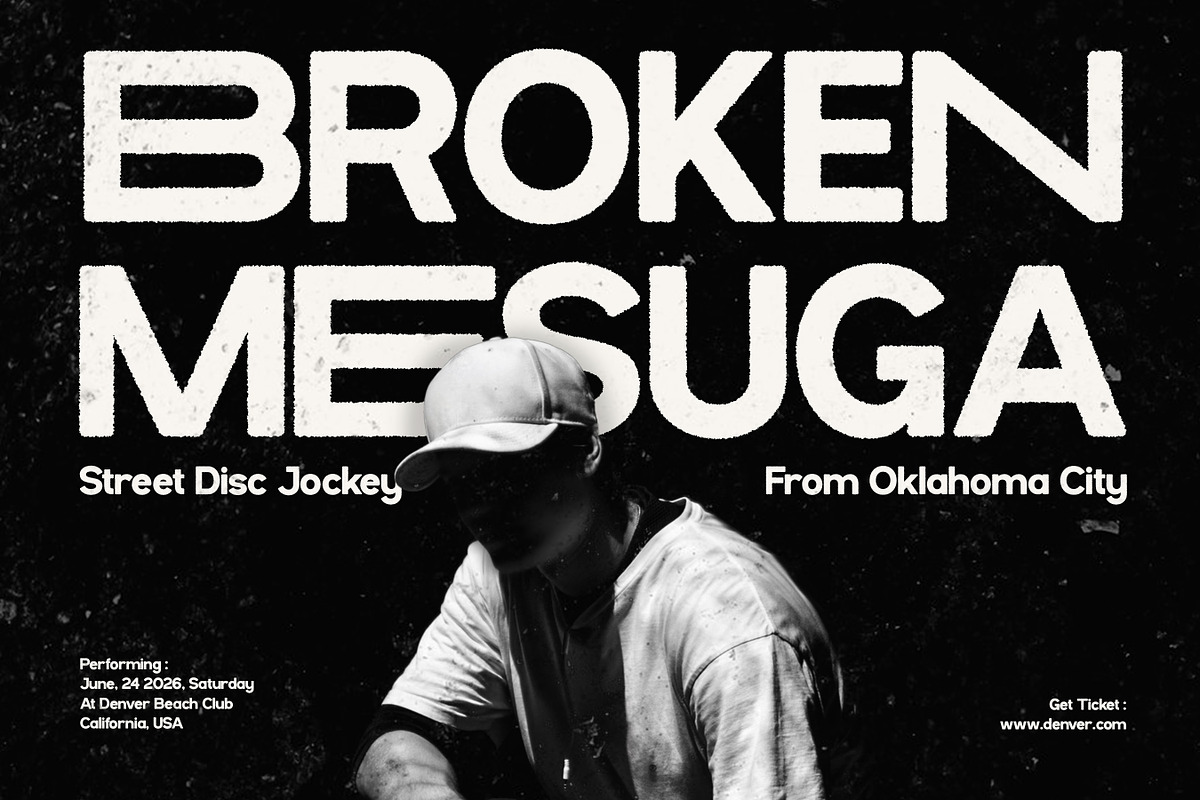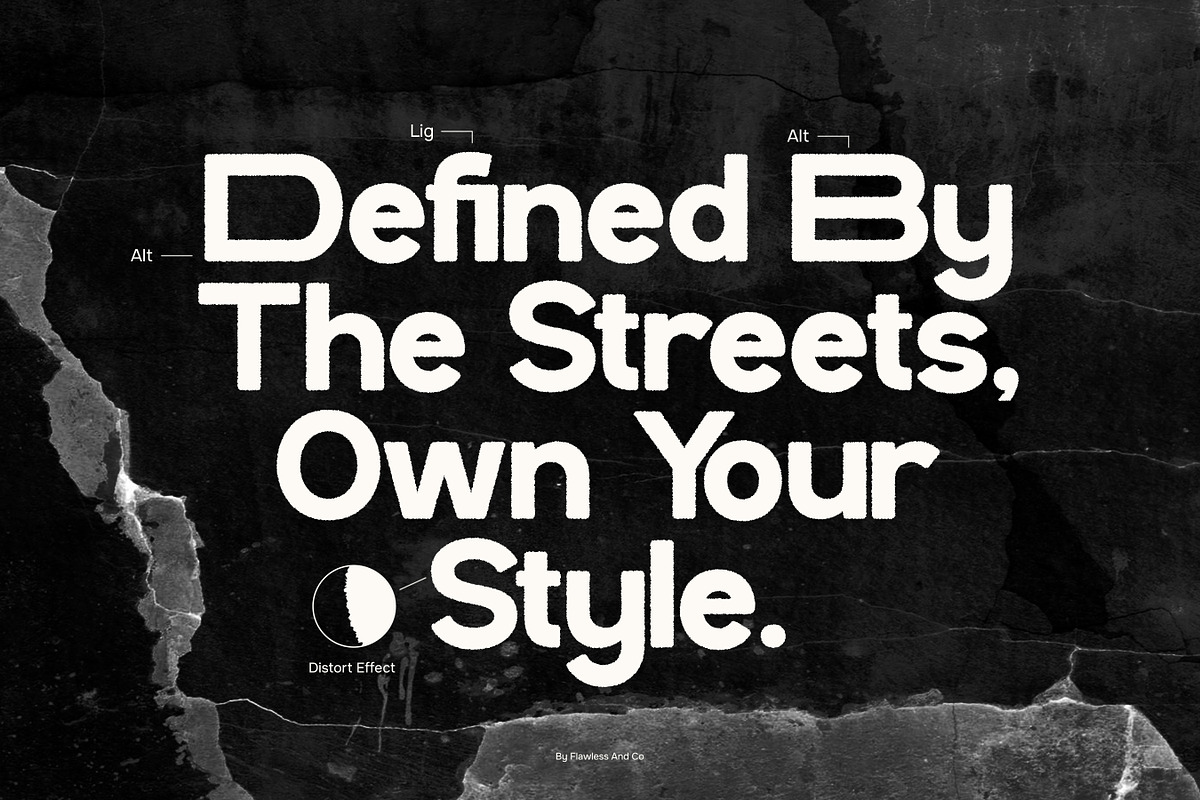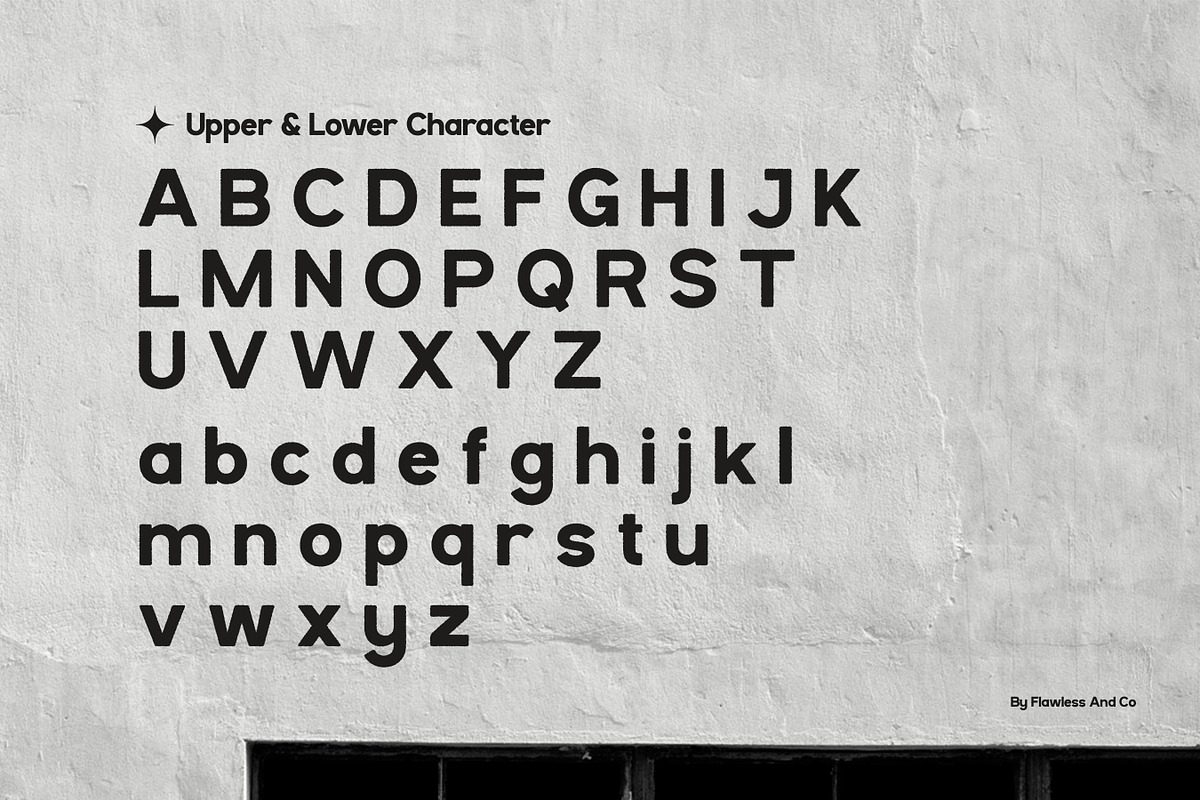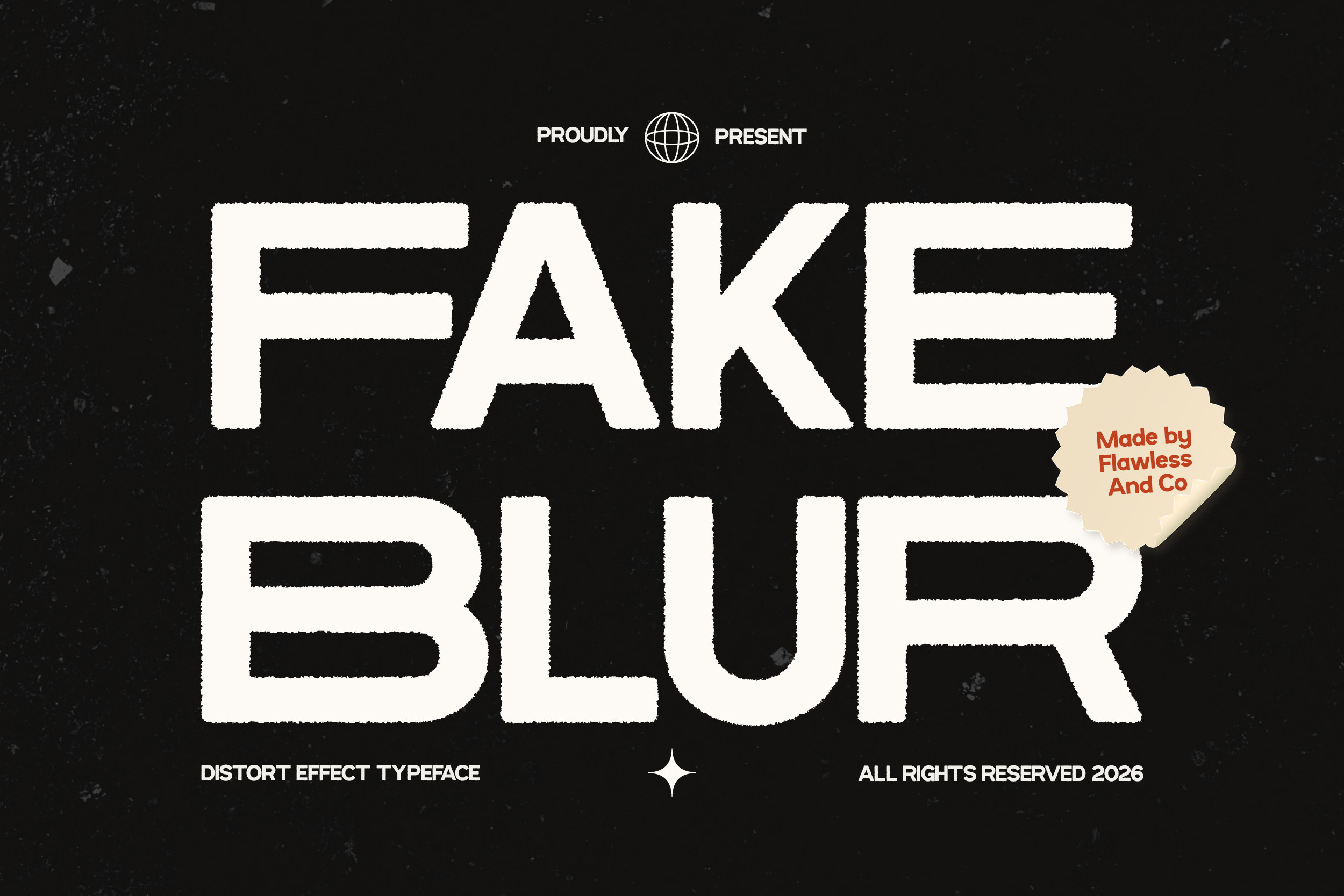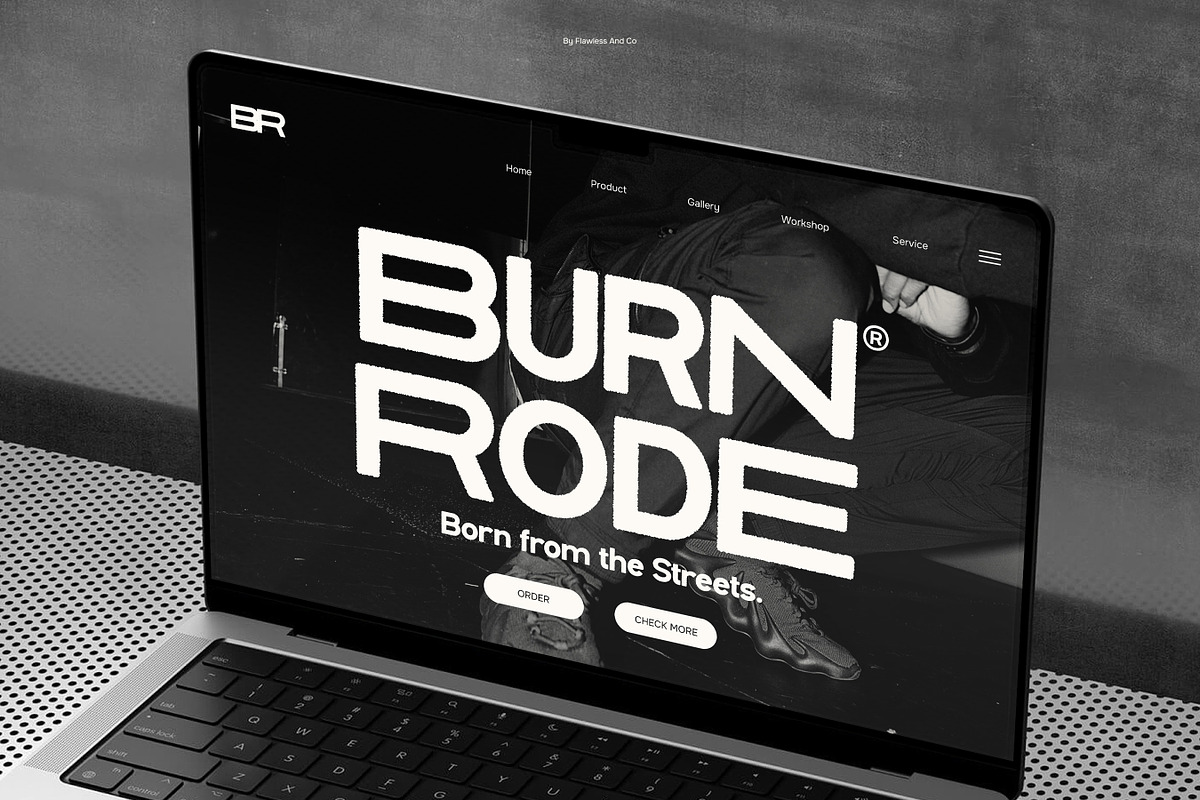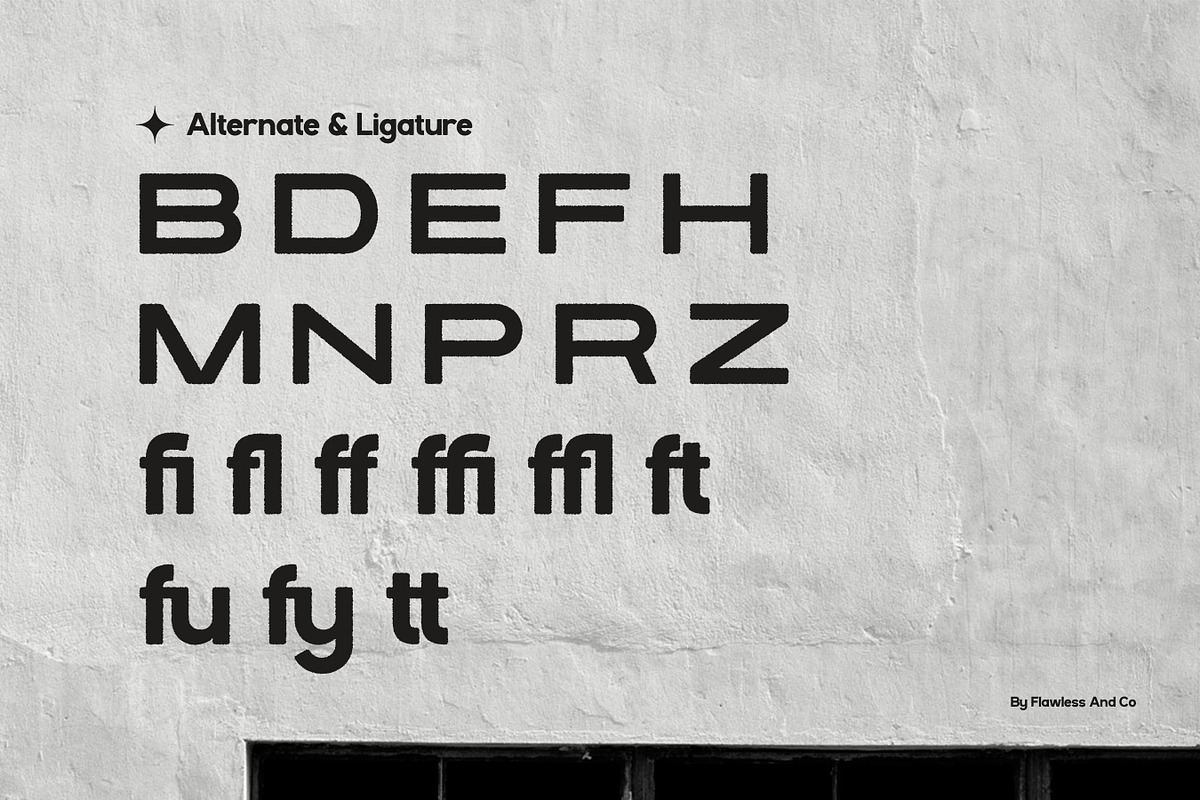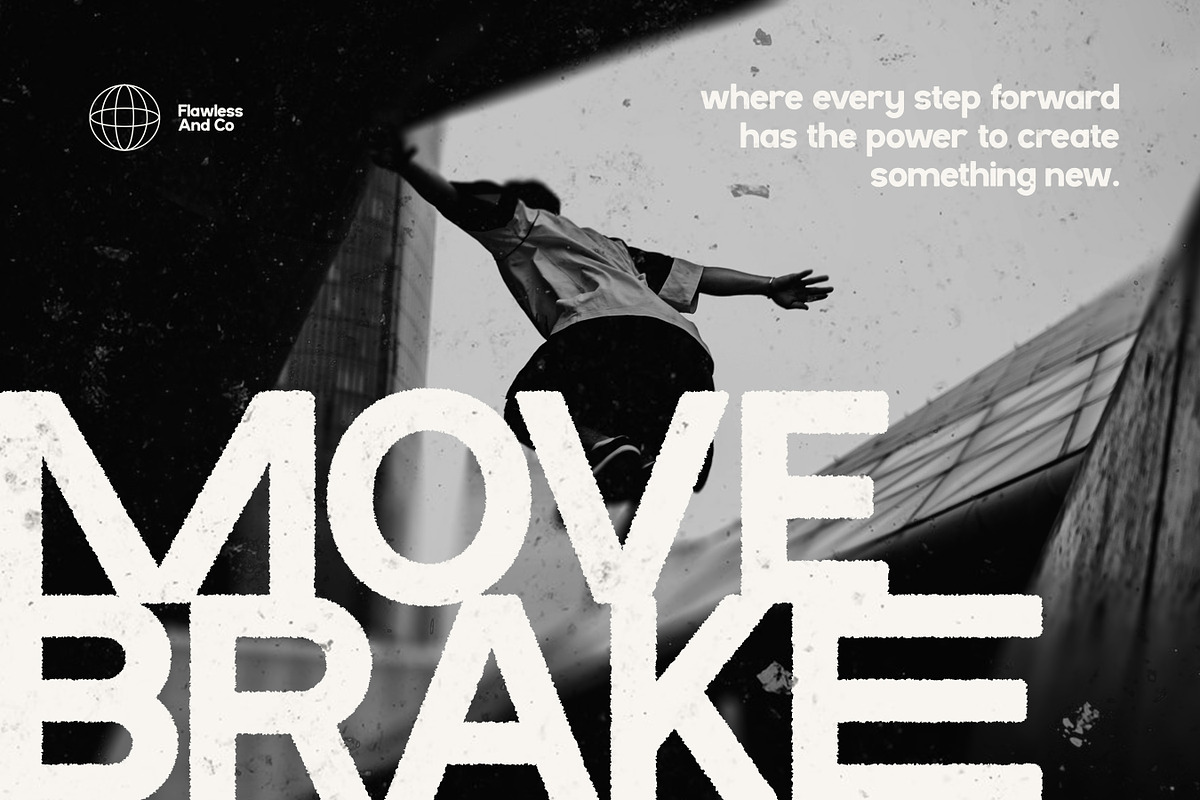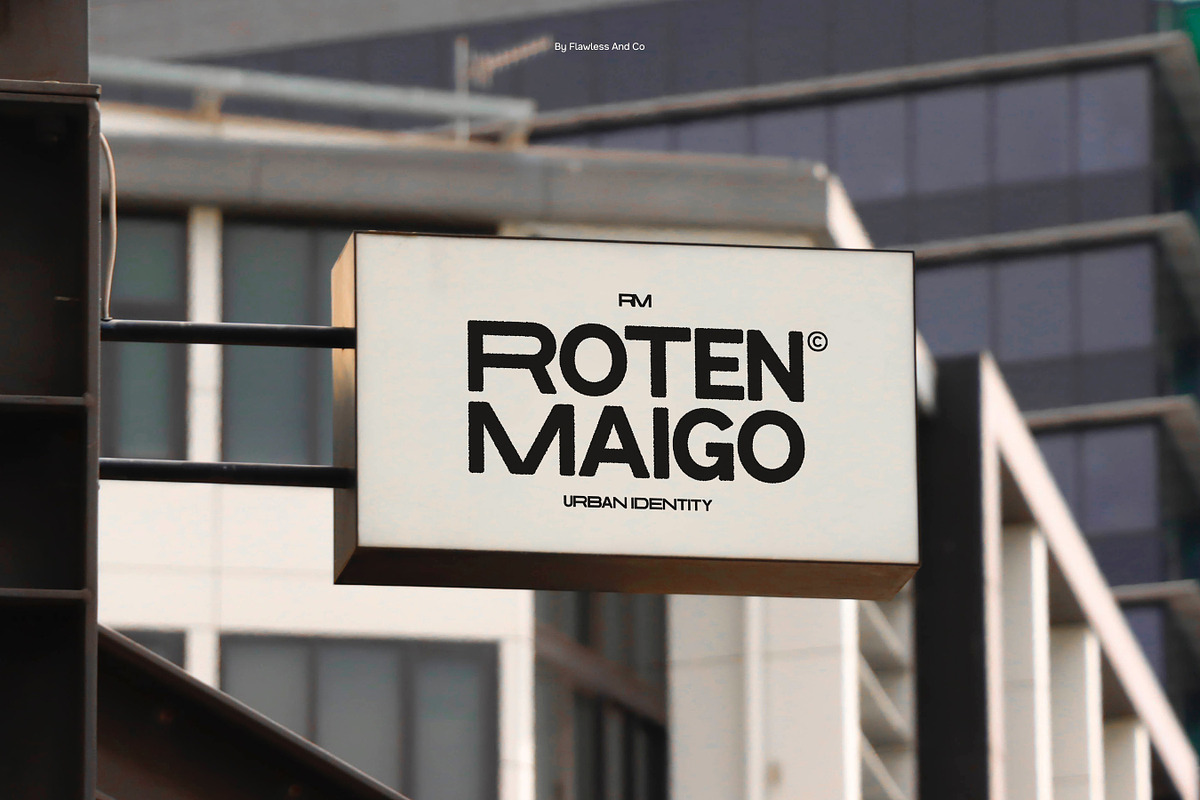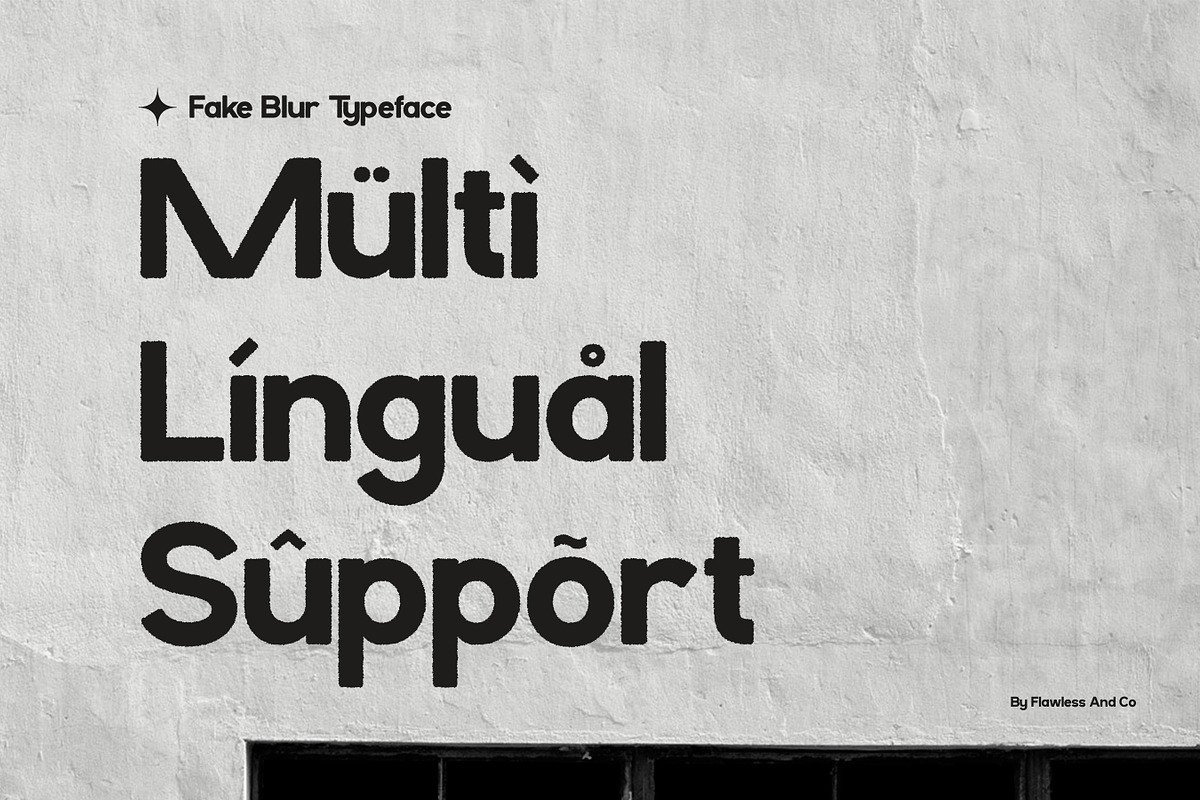
Fake Blur - Distort Effect Sans Font
Fake Blur - Distort Effect Sans Serif Font
Fake Blur is an experimental distort effect sans serif typeface that plays with perception and motion. Designed with a striking blur illusion, its letterforms appear to shift and vibrate, creating a sense of speed and digital distortion. This unique visual style gives your designs an edgy, futuristic feel that stands out instantly. Perfect for bold creatives, Fake Blur transforms simple text into a dynamic visual statement that feels modern, unconventional, and full of energy.
Who Should Use Fake Blur?
Fake Blur is ideal for designers and creatives who want to explore bold, experimental, and visually disruptive typography. It’s especially suited for projects that require a modern, edgy, and artistic display style.
Suitable For:
- Experimental and creative design
- Posters and promotional graphics
- Music and album artwork
- Digital and glitch-style visuals
- Streetwear and edgy branding
- Social media content
- Artistic typography projects
- Eye-catching headline design